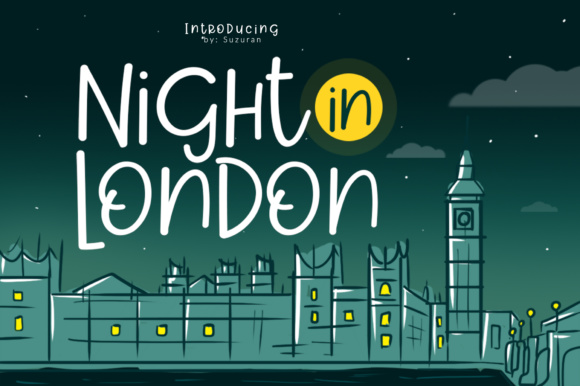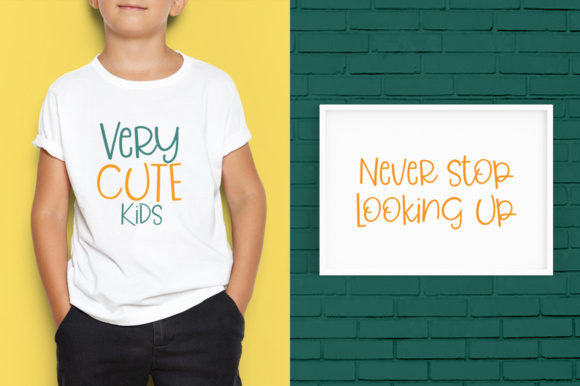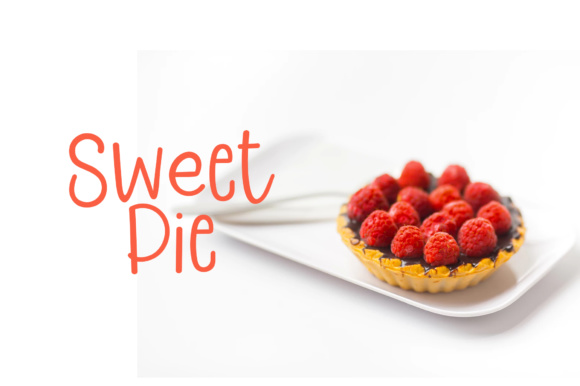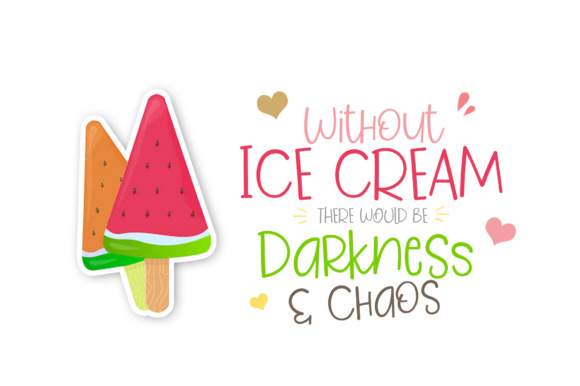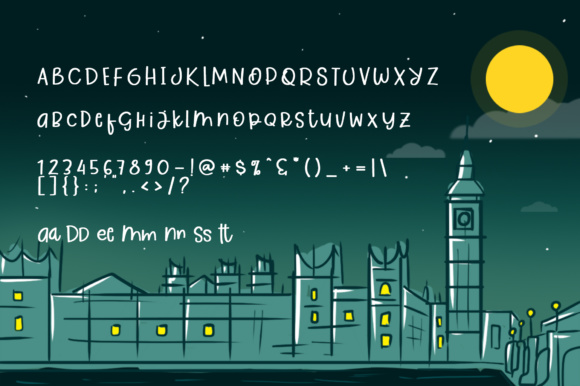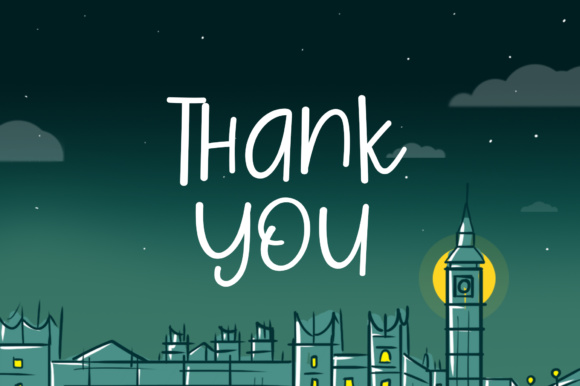
Night in London Font
The Night in London typeface is a playful font with a cheerful theme.
The font comes in 2 different styles: Regular & Slant.
It’s suitable for a large range of projects, such as logos, branding, greeting cards, branding and much more.